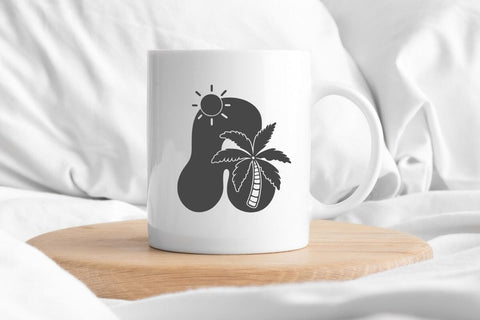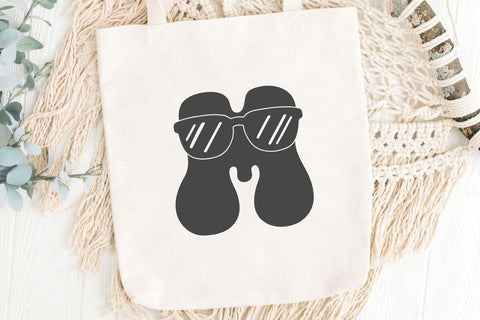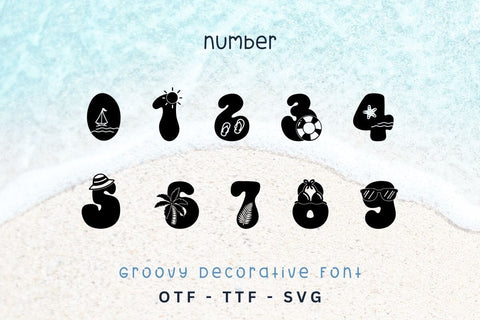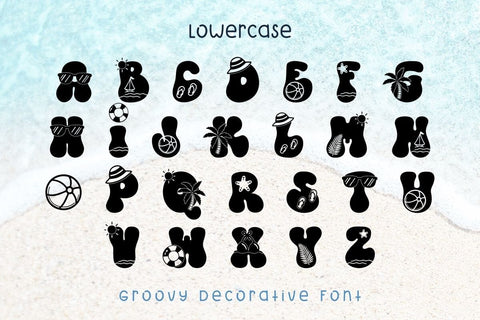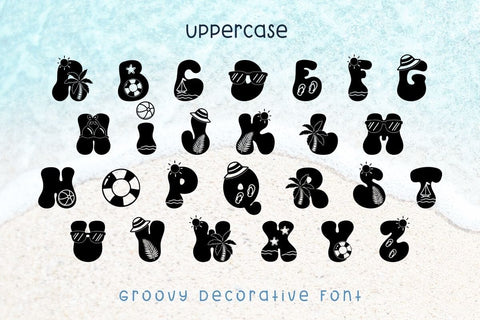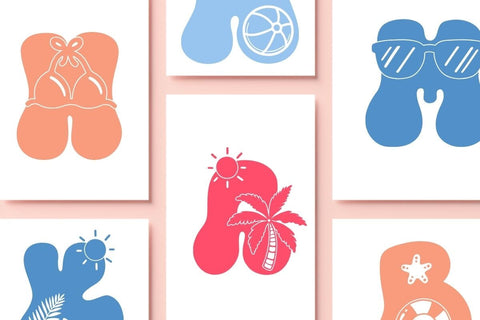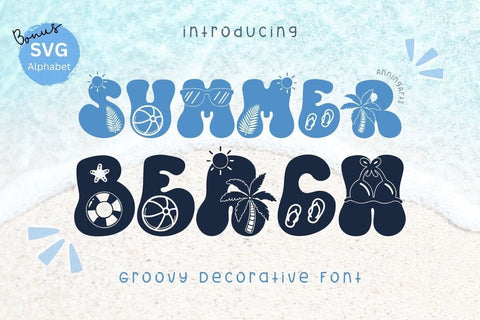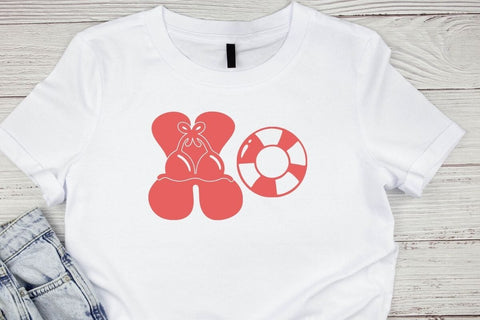
Summer Beach - Display Font
Summer Beach is a cute decorative font adorned with summer elements such as hats, sunglasses, bikini, etc. Its quirky design adds fun to any project. Perfect for creating a variety of new designs to match your product such as banners, content, mugs, cards, shirts, stationery, social media posts, and more!